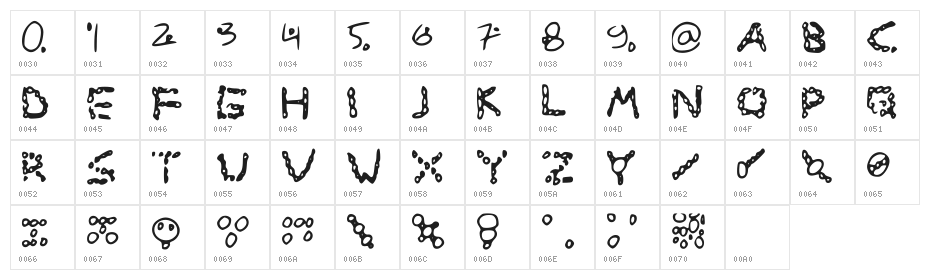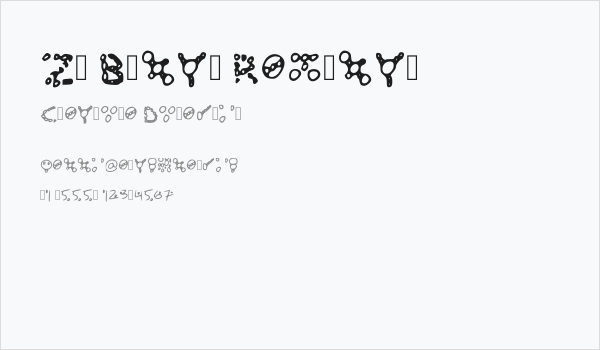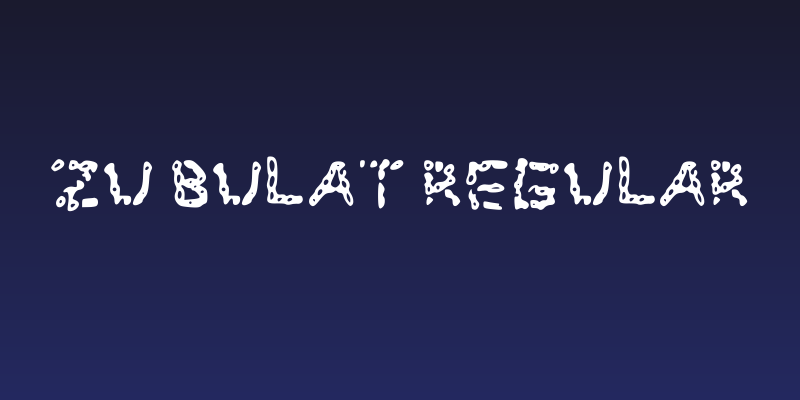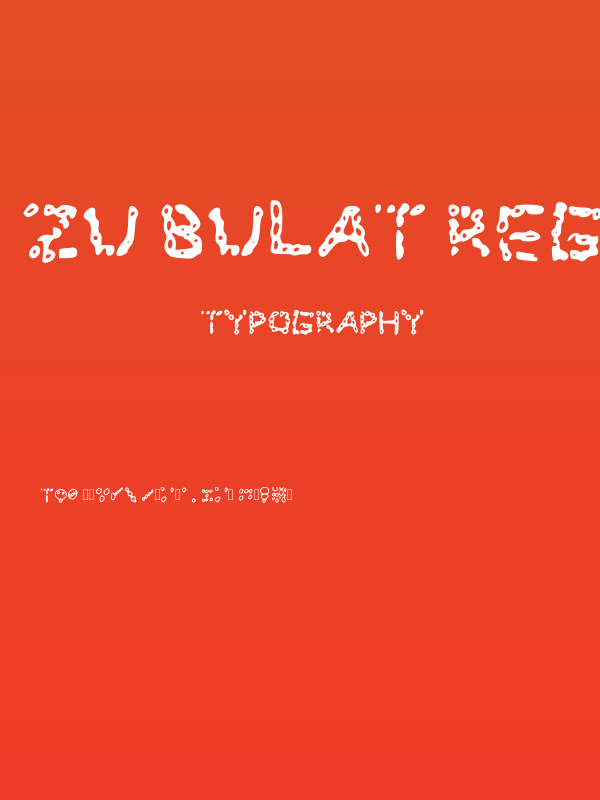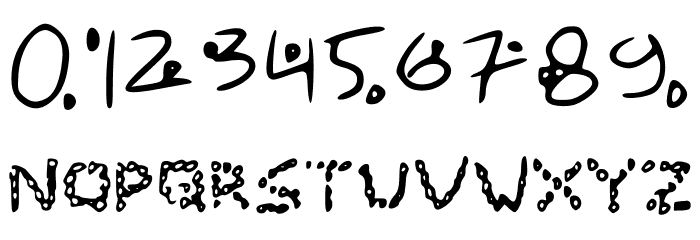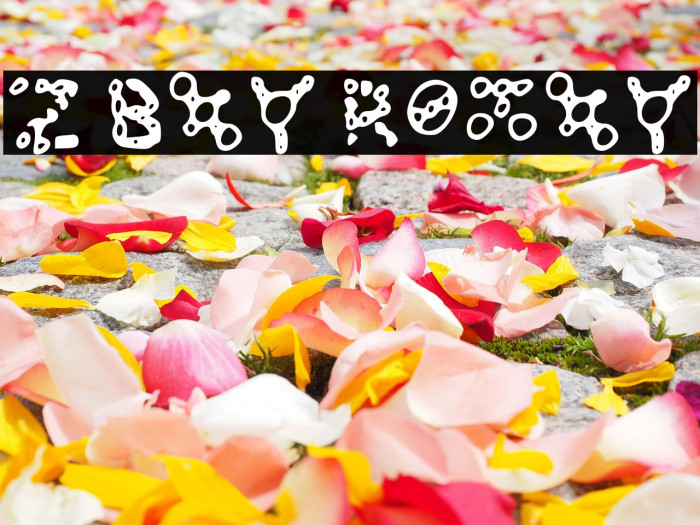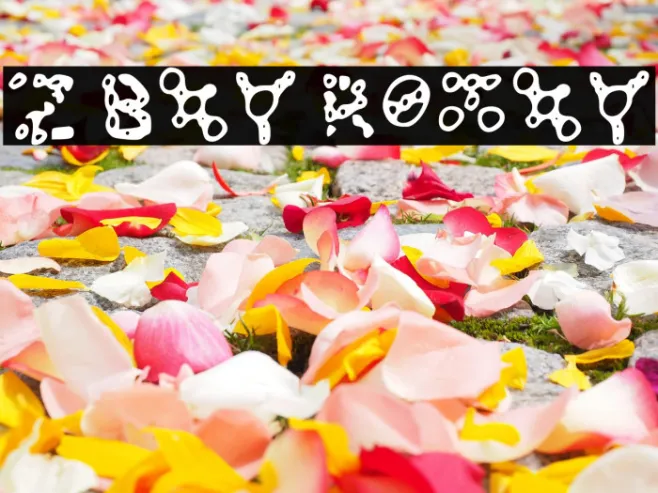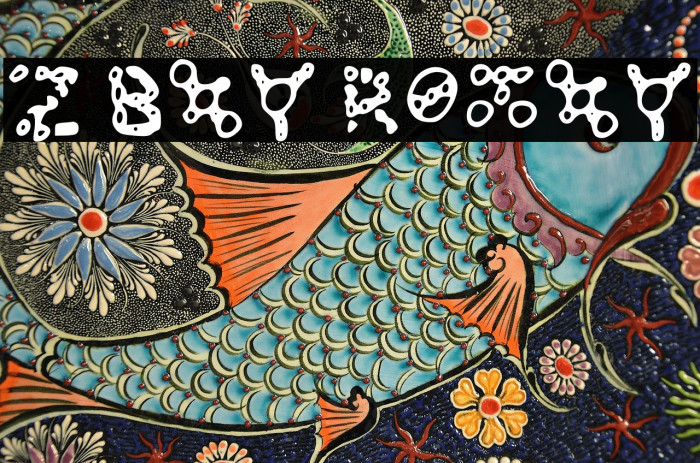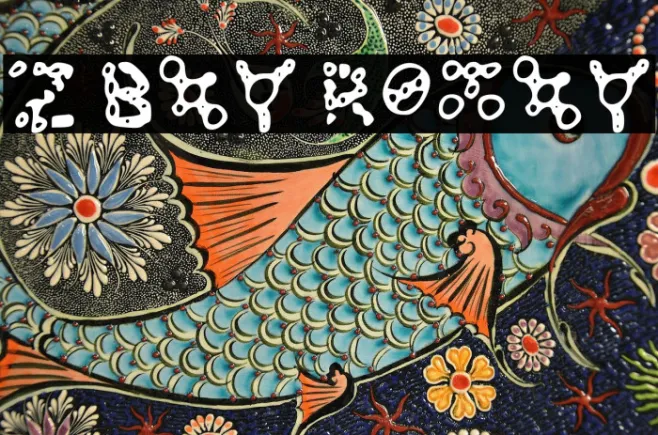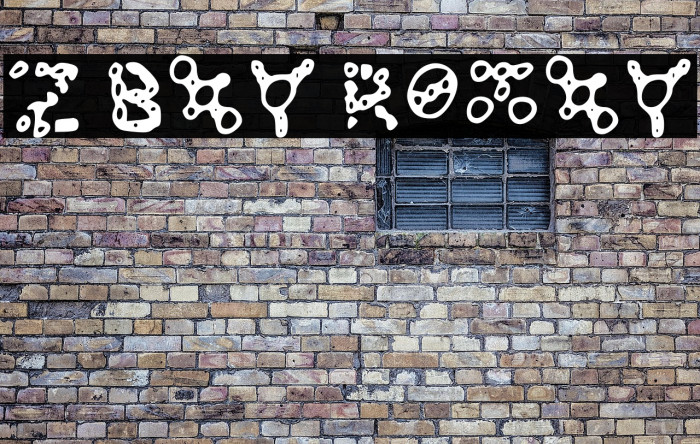
Zu Bulat Regular Font
Zu Bulat Regular Description
This font features a playful and unique design with a bubbly, organic appearance. Each character is composed of irregular, rounded shapes that give it a whimsical and informal feel. The letters are bold and eye-catching, making them suitable for creative and artistic projects. The font's distinctive style is characterized by its uneven stroke thickness and the presence of small, circular elements within the characters, adding to its quirky charm. The overall look is both modern and fun, making it ideal for projects that require a touch of personality and creativity.
| Proposed Projects | Ideal for children's books, playful branding, creative posters, and artistic invitations. |